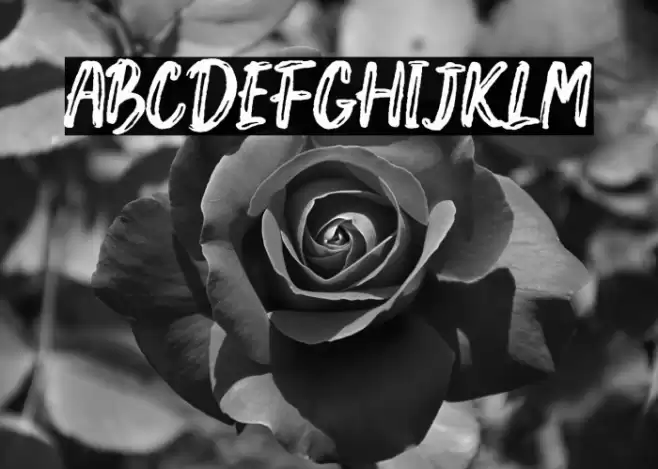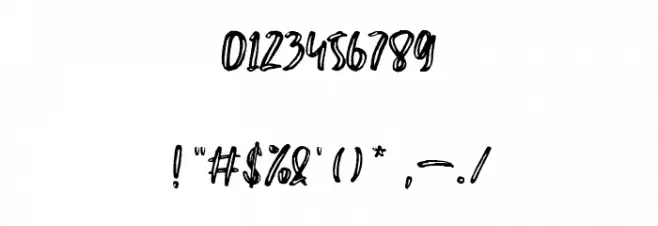
Creshex Brush Font Font
Creshex Brush Font Description
This font features a dynamic and energetic brush style, characterized by its bold and expressive strokes. The letters have a hand-drawn appearance, giving them a personal and artistic touch. The uppercase and lowercase letters maintain a consistent style, with slightly irregular edges that enhance the handwritten feel. The numbers and special characters follow the same aesthetic, ensuring a cohesive look across all text elements. The font's design is perfect for projects that require a lively and informal vibe, making it suitable for creative and artistic applications.
A bold, brush-style font with an energetic and artistic feel from Comic fonts.
- Proposed Projects: Ideal for posters, invitations, branding, and any creative projects that benefit from a personal touch.